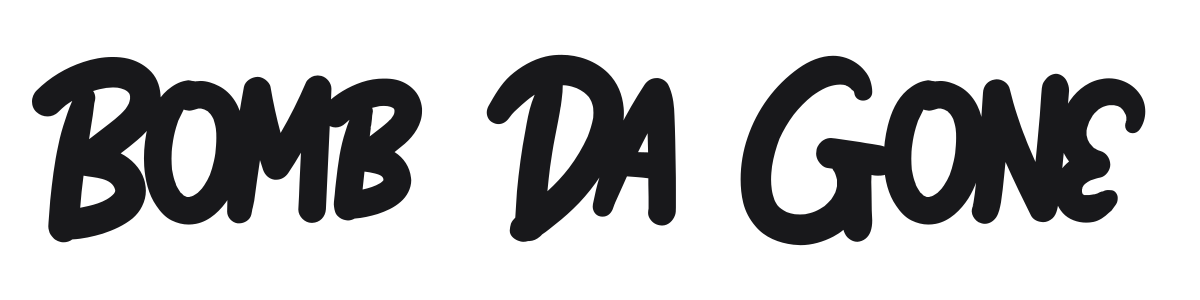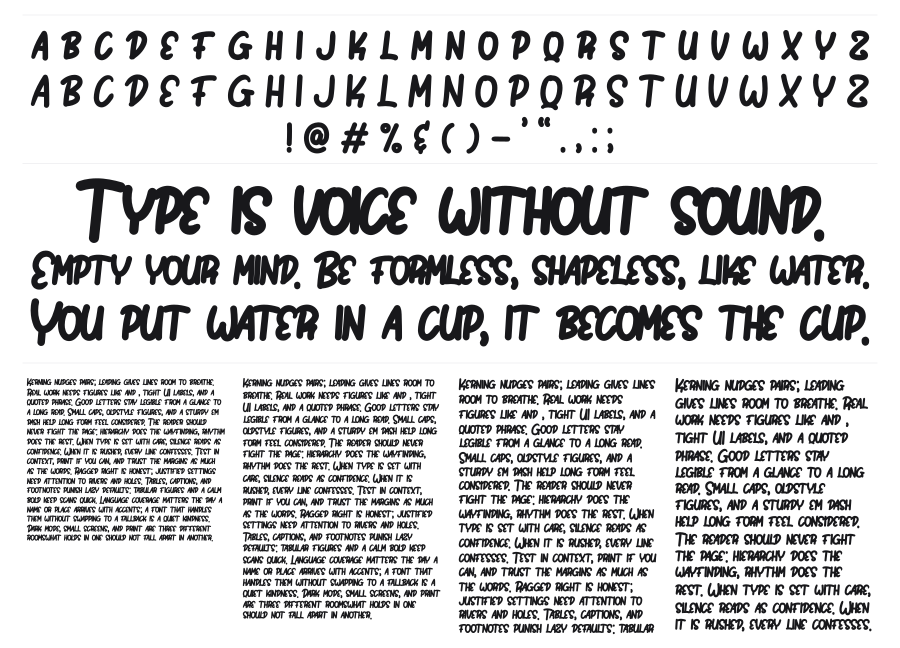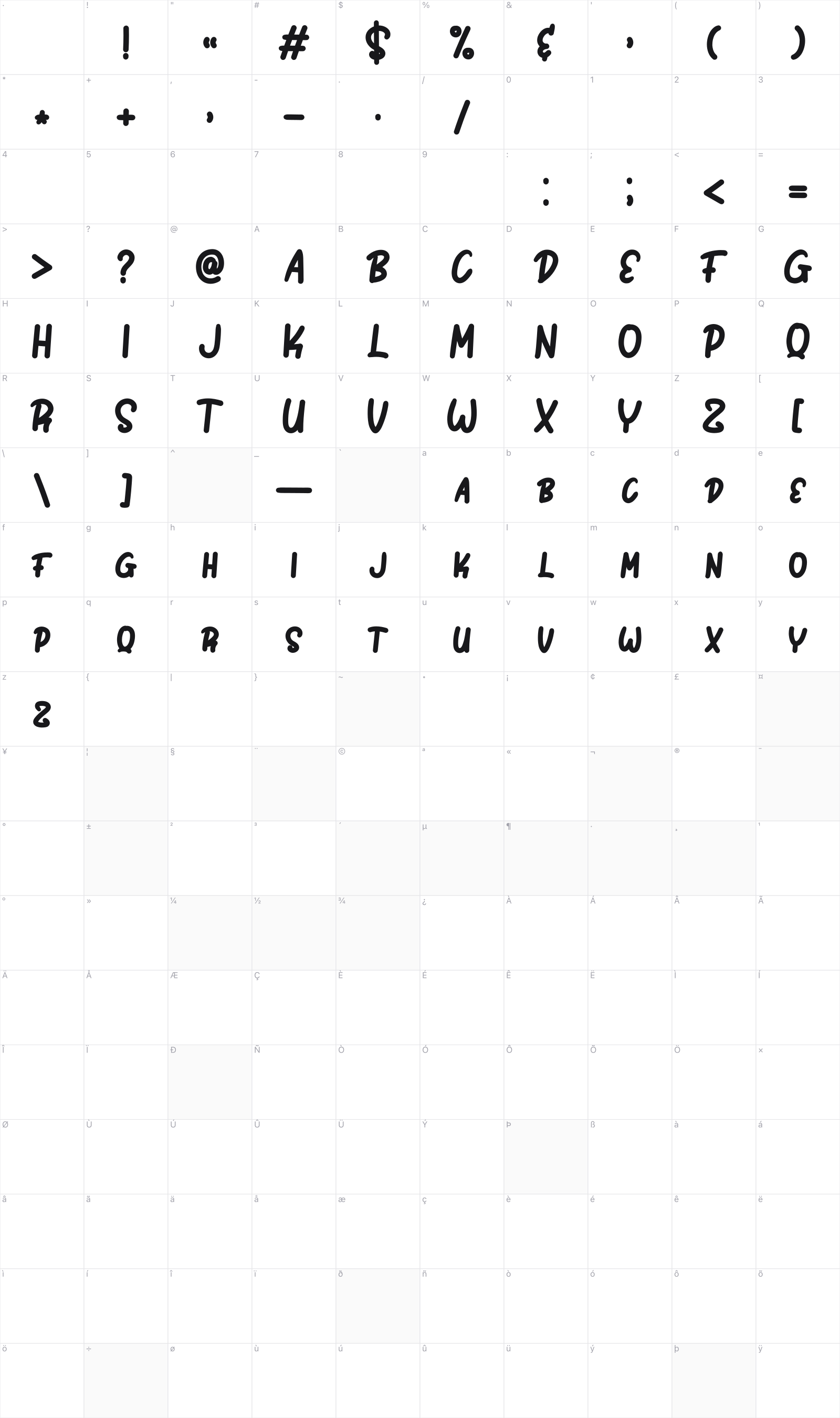
Bomb Da Gone
Bomb Da Gone is a heavy brush script with thick, rounded strokes and the loose energy of a fat marker drawn freehand. The bold, slightly condensed letters lean forward with an expressive, hand-crafted edge that reads like street signage crossed with comic lettering. It commands attention at large sizes and brings a raw, youthful punch to headlines and packaging.